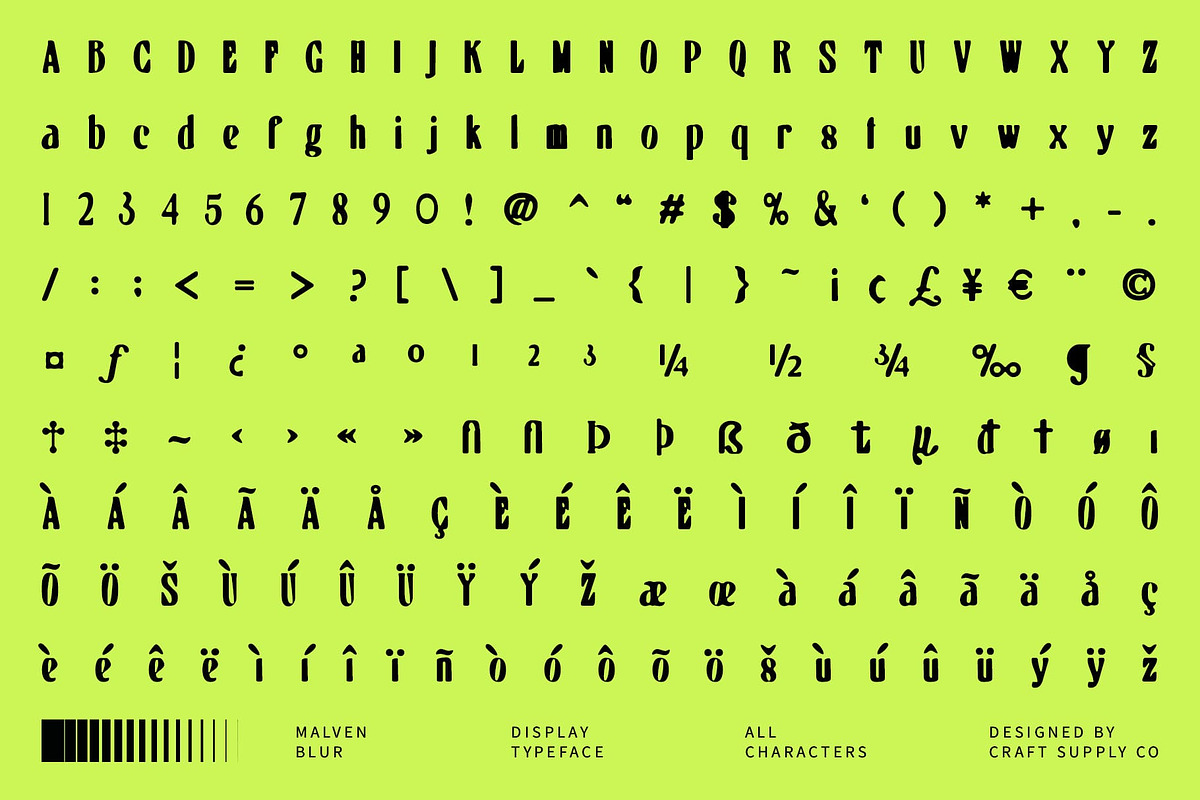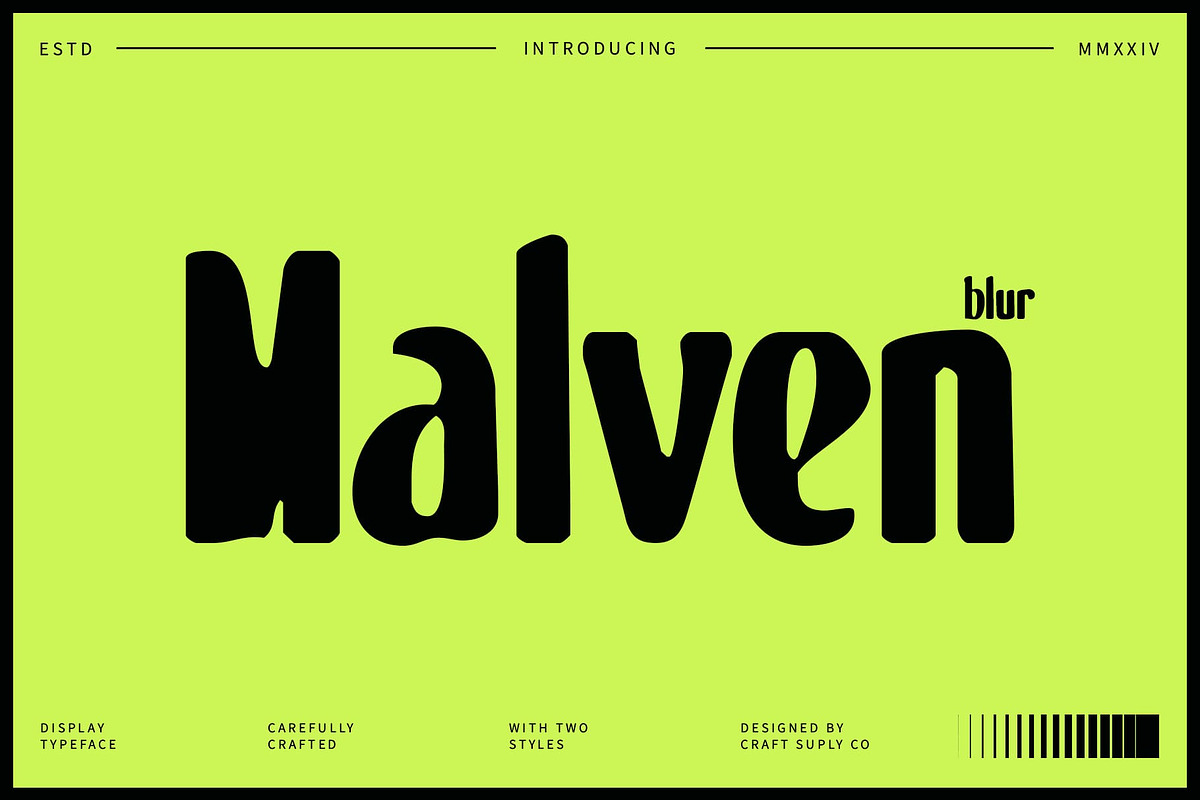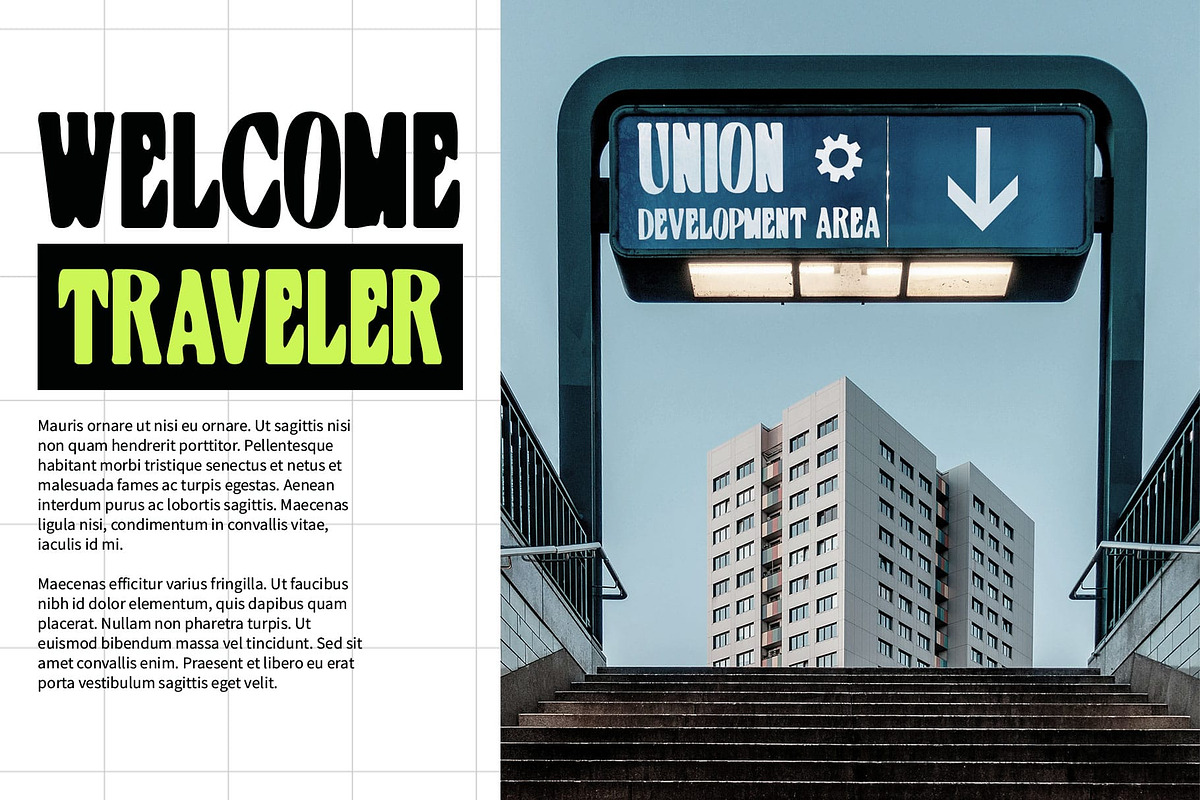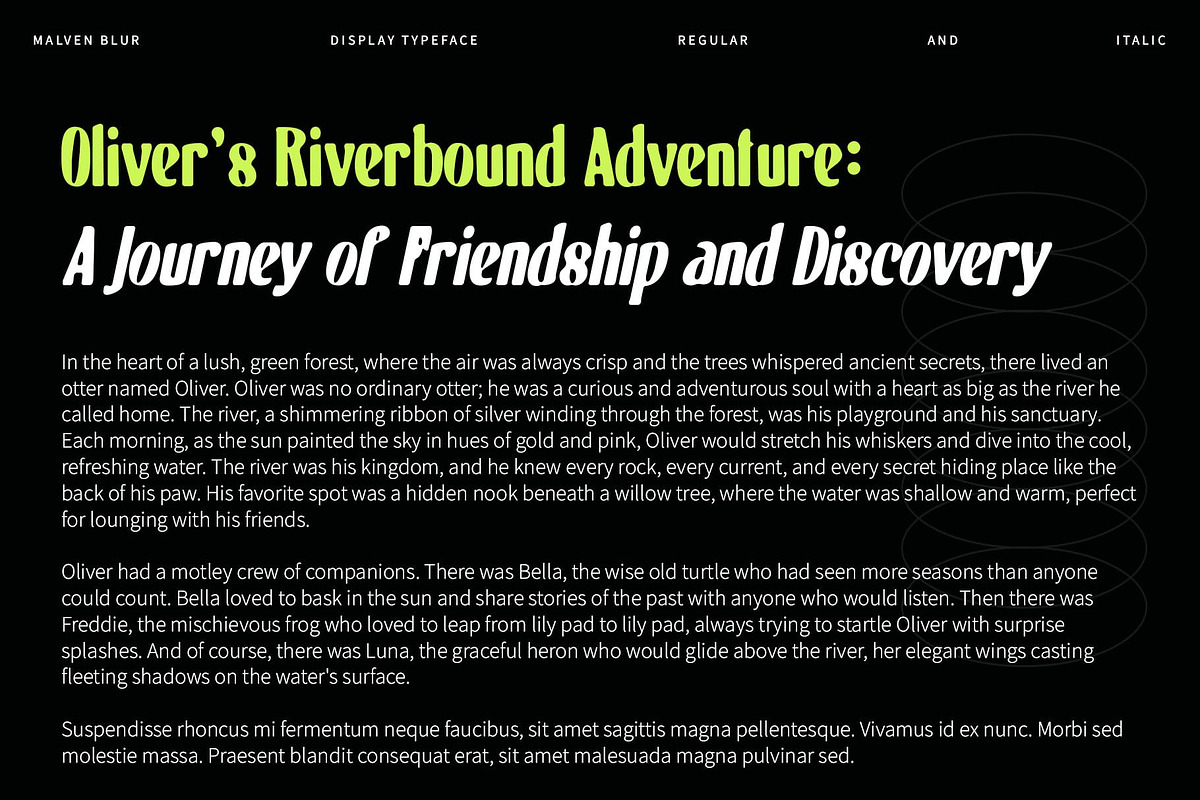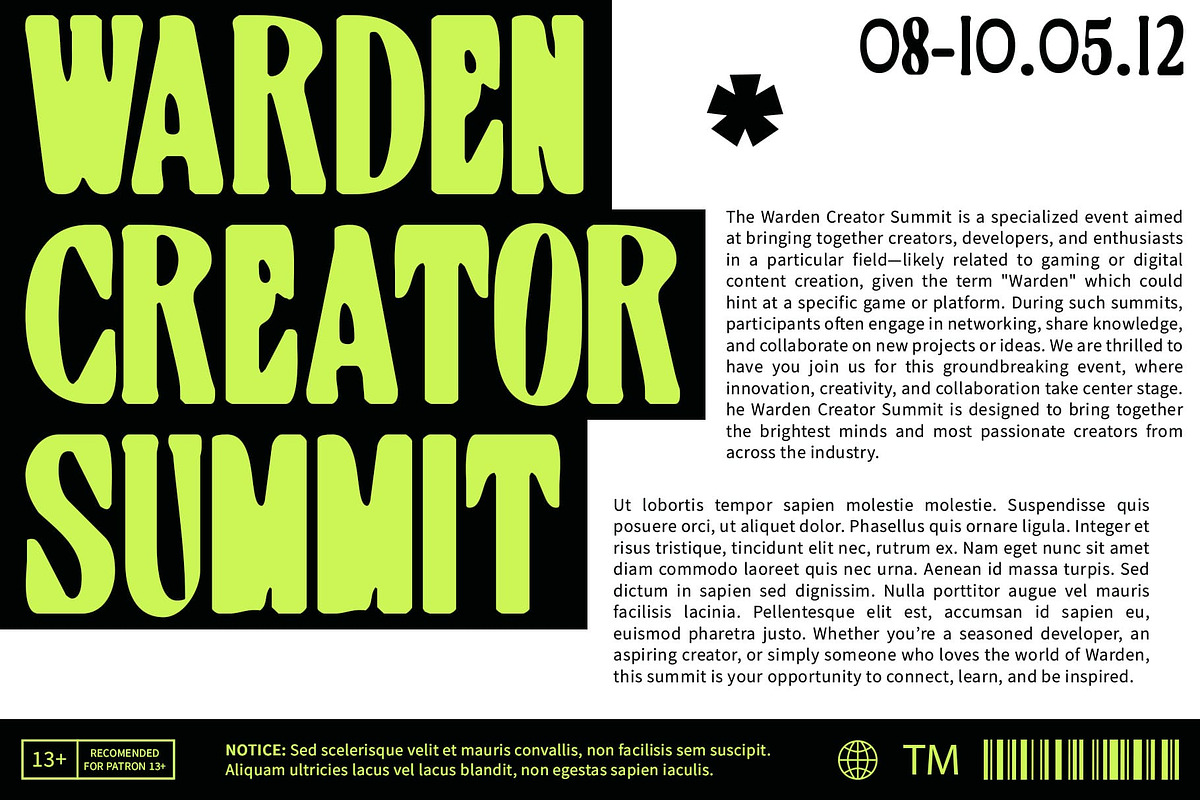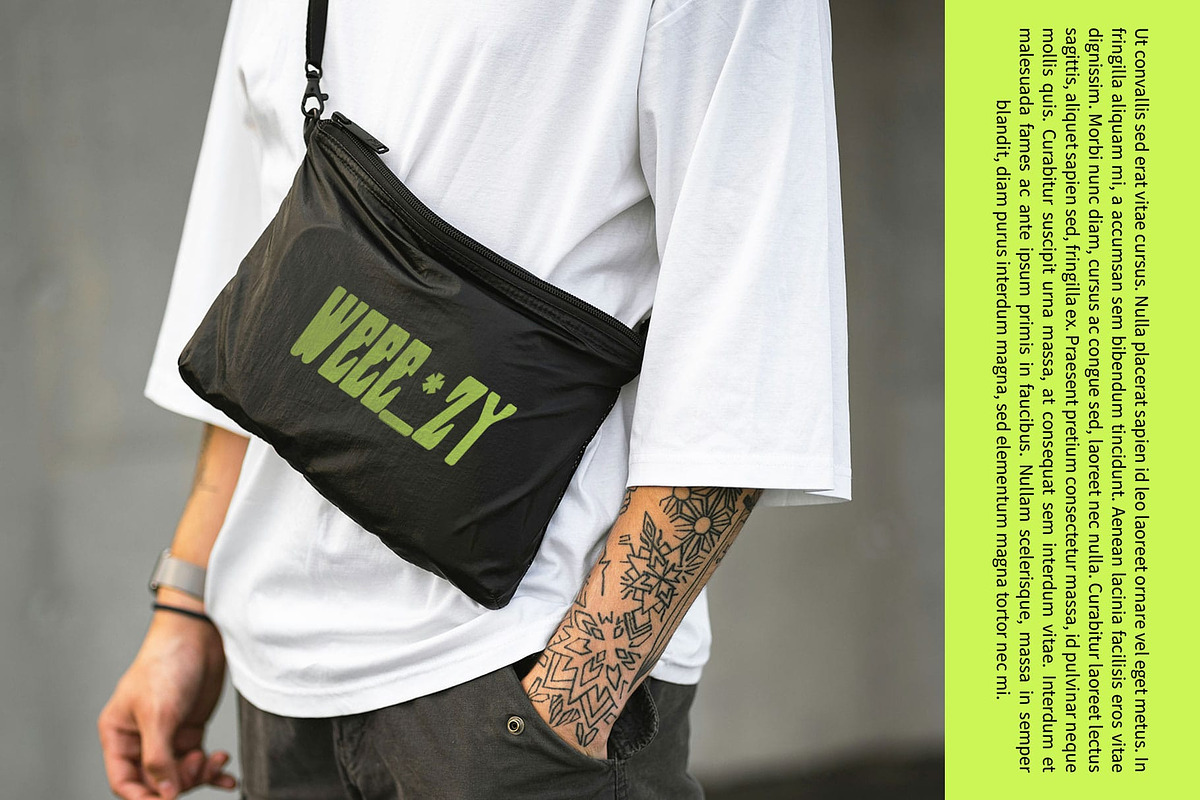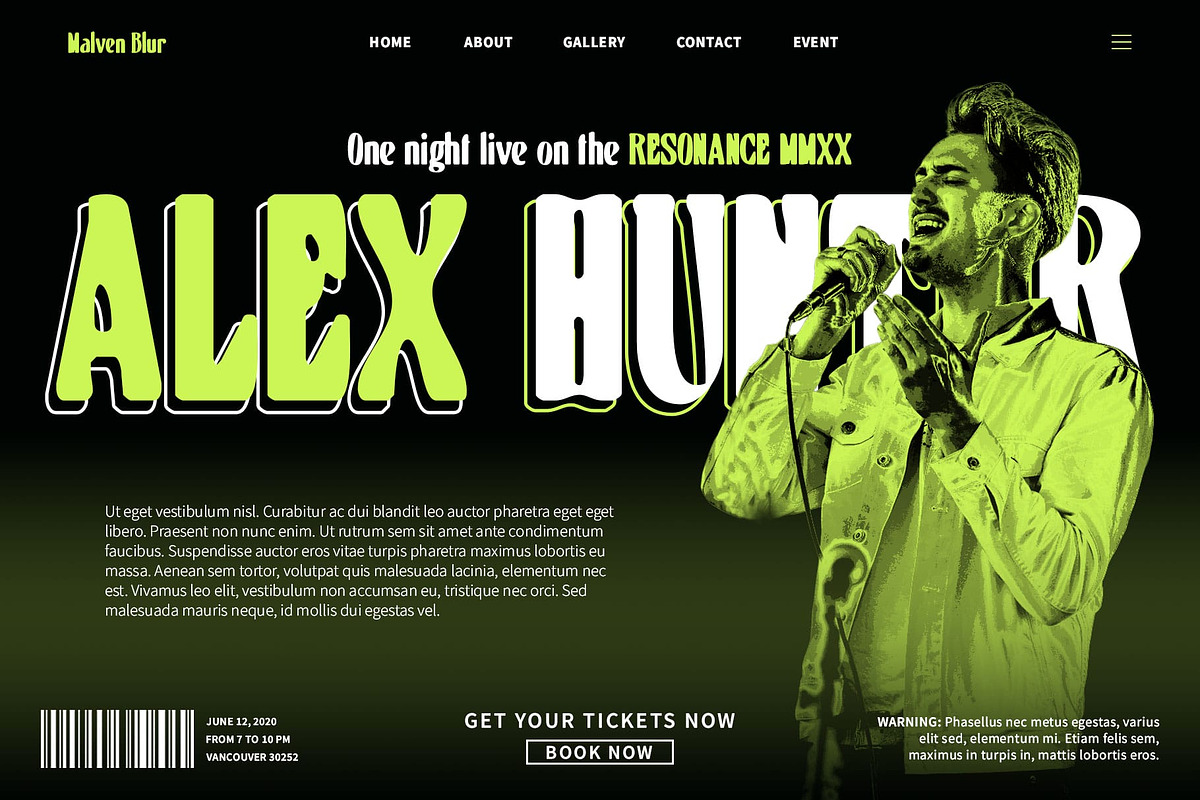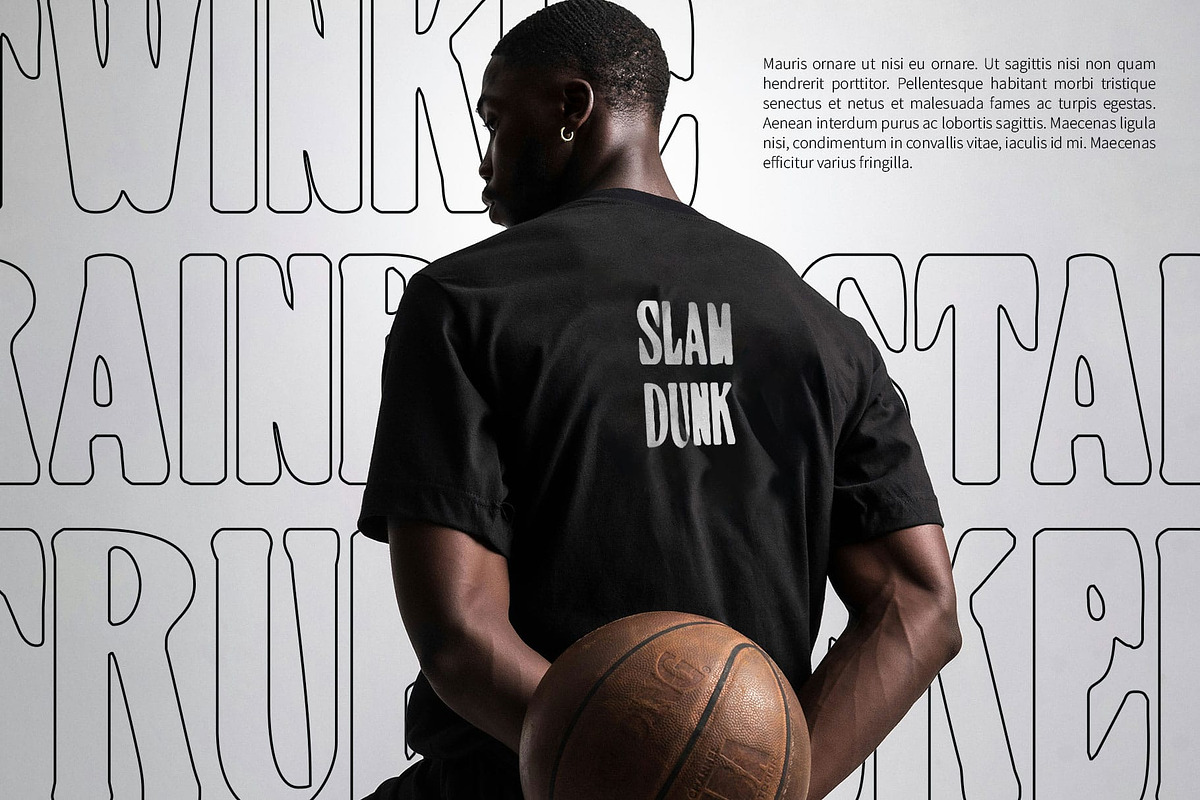
Malven Blur
Malven Blur Font: Modern Serif Font with Didone Inspiration and Elegant Blur Effect
Didone-Inspired Design with Sharp Contrasts Malven Blur features a modern serif design inspired by the Didone style, characterized by its sharp thick-thin contrasts and elegant lines. This classic inspiration brings a sophisticated and refined appearance, merging traditional serif elements with contemporary aesthetics for a striking visual impact.
Elegant Blur Effect for a Contemporary Touch The addition of a blur effect to Malven Blur introduces a smooth and contemporary dimension to its Didone-inspired shape. This effect softens the sharp contrasts and adds a layer of sophistication, creating a harmonious balance between classic elegance and modern design sensibilities.
Perfect for Sophisticated and Dynamic Designs Malven Blur is ideal for projects that require a blend of timeless sophistication and dynamic flair. Its refined lines and blur effect make it suitable for high-end branding, editorial layouts, and other design applications that aim to evoke a sense of elegance and modernity.
Versatile for a Range of High-End Applications Whether used in luxury branding, editorial publications, or stylish marketing materials, Malven Blur provides a versatile and sophisticated option. Its combination of Didone-inspired design and contemporary blur effect ensures a unique and captivating look that enhances any project with both classic and modern appeal.